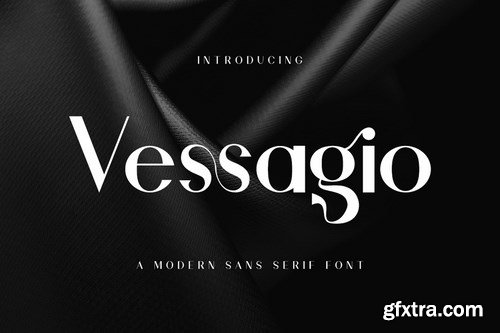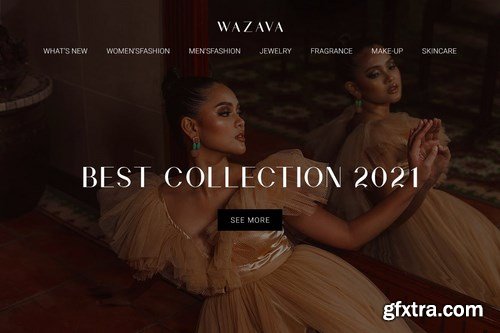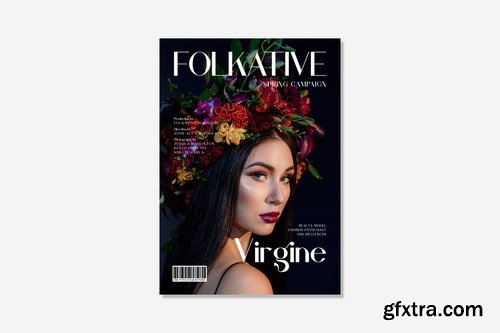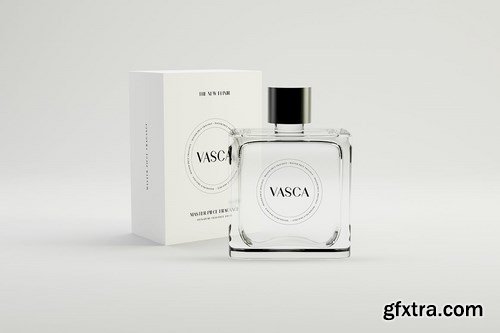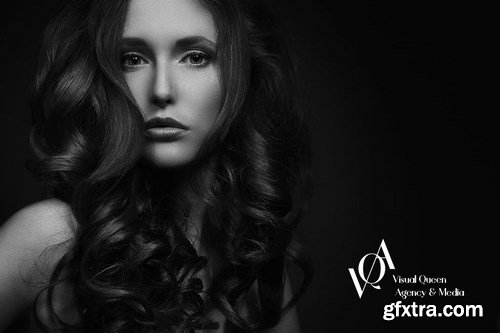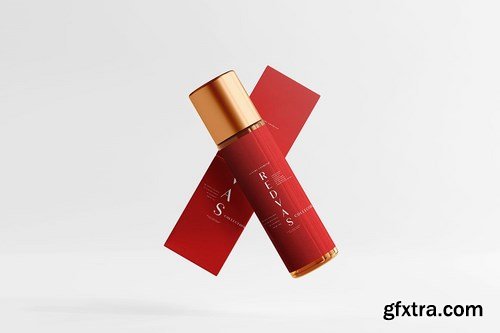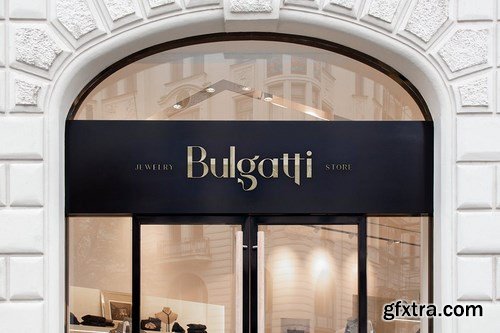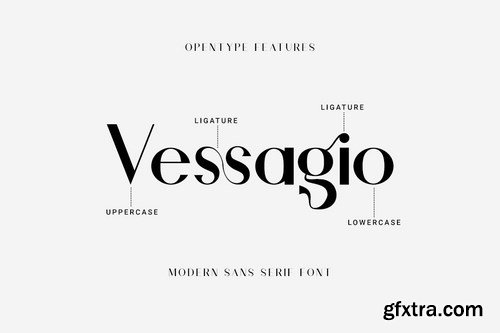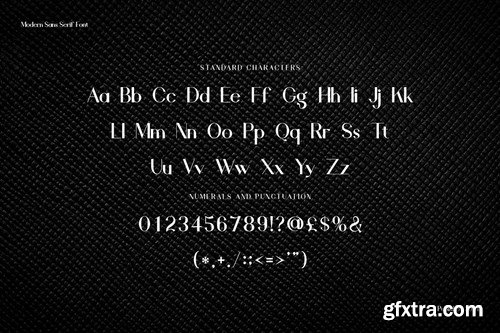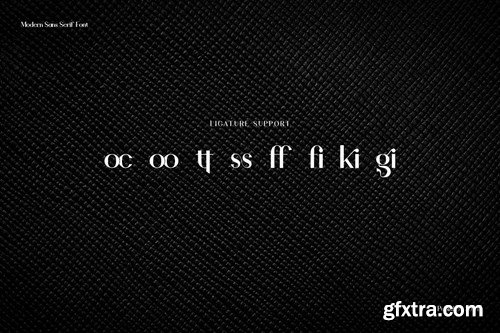
Vessagio is a sans serif font. It features a minimalistic and modern look. Its versatility will apply to a wide range of crafty ideas, from letterheads and titles, to stationery.